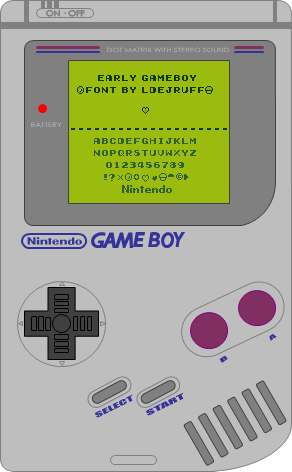
Font name: | Early GameBoy |
Author: | Jimmy Campbell |
Note by Jimmy Campbell | |
This font is based on the typeface that was used in early games for the Nintendo Game Boy. |